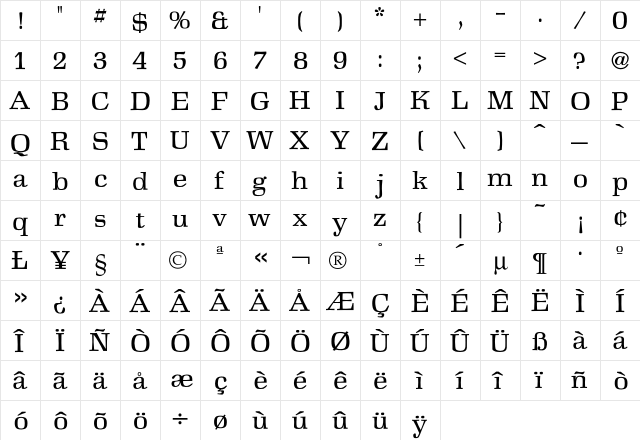
Antikva Regular
Design Context for Antikva Typeface
Antikva offers clean, dependable letterforms without strong stylistic allegiance, making it a practical choice for designers who need flexibility.